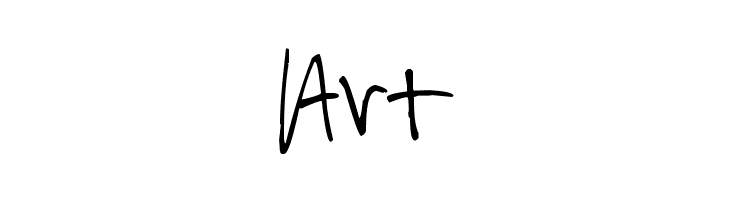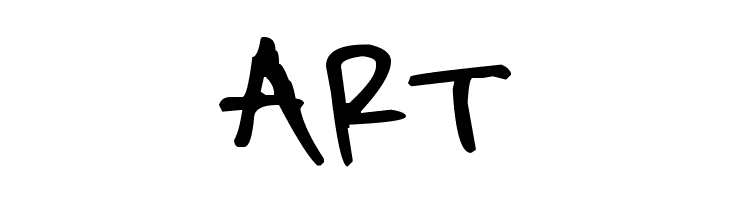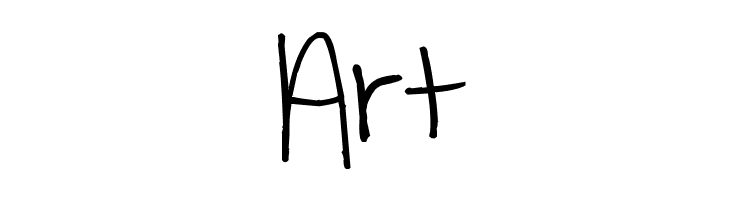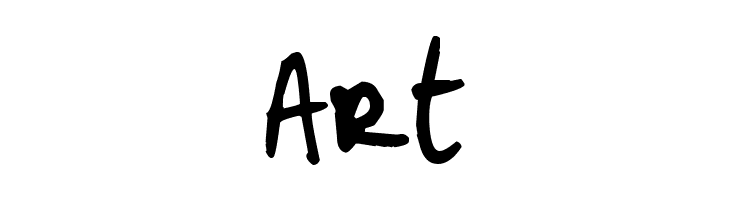
• Pea Payton
A playful, informal handwritten font with a whimsical and personal touch.
• Pea Rain
A playful, handwritten font with an informal and lively style.
• Pea Ratchette
A playful, casual handwritten font with uneven strokes and a friendly vibe.
• Pea Rebecca
A playful, casual handwritten font with a dynamic and lively feel.
• Pea Rigsby
A playful and casual handwritten font with a relaxed, informal style.
• Pea Riley
A playful, handwritten font with a casual and lively style.
• Pea RobotStrong
A playful, casual handwritten font with uneven strokes and a friendly vibe.
• Pea Roni Script
A casual, handwritten script font with fluid, connected letters and dynamic strokes.
• Pea Sadie
A playful, handwritten font with a casual and friendly vibe.
• Pea Sam